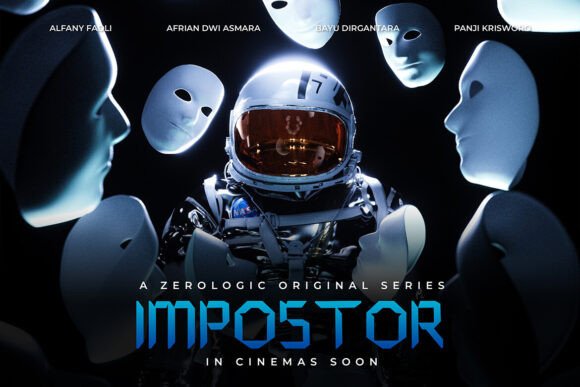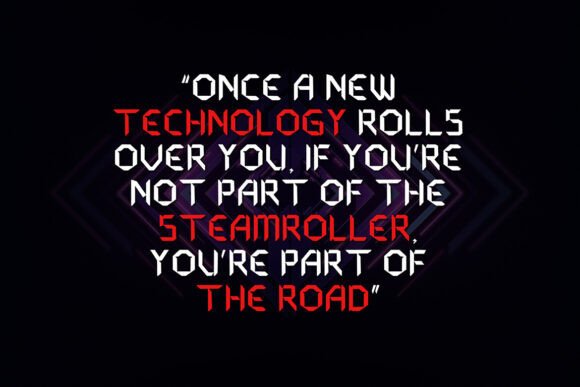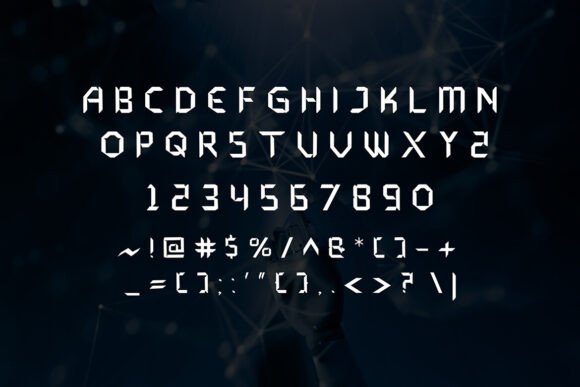
A New Dimension in Typography: Introducing Aero Glyphics Font
As a designer, there’s nothing quite like the thrill of discovering a new font that sparks creativity and inspires innovation. The moment you stumble upon that perfect combination of style and functionality, it’s like unlocking a door to a world of endless possibilities. For us, that moment arrived with the introduction of our new collection, Aero Glyphics – Futuristic Display.
This cutting-edge font is designed to elevate your designs to new heights, making it perfect for titles, typography, posters, magazines, brochures, packaging, websites, and much more. With its futuristic style and strong characteristics, Aero Glyphics Font is a valuable addition to any designer’s toolkit, allowing you to create modern and professional designs that truly stand out.
Whether you’re a seasoned pro or just starting out, Aero Glyphics Font is sure to become your go-to choice for any project that demands a touch of futurism and sophistication.
Aero Glyphics Font Key Features
- Unique Character Set: This font features a unique set of glyphs, including extended Latin, Cyrillic, and Greek characters, making it suitable for multilingual designs.
- Stylistic Sets: Aero Glyphics Font includes 5 stylistic sets, allowing designers to add variety and interest to their text with subtle changes in font style and appearance.
- Support for Advanced Typography: The font includes advanced typographic features, such as ligatures, fractions, and ordinals, enabling designers to create complex and sophisticated typography.
Aero Glyphics Font Review
I recently had the chance to work with the Aero Glyphics font, and I must say, it’s a unique and stylish addition to any design project. ✨
Here are some things that I think work well with this font:
- Modern aesthetic – Aero Glyphics has a sleek, futuristic feel that’s perfect for tech, gaming, or futuristic-themed designs.
- Good legibility – Despite its unconventional design, the font is surprisingly easy to read, even at smaller sizes.
- High contrast – The bold lines and contrasting colors make this font perfect for creating eye-catching headings and titles.
- Limited character set – Aero Glyphics is not a full-featured font, and it’s missing some common characters, such as accented letters and punctuation.
- May not be suitable for body text – Due to its bold, attention-grabbing design, Aero Glyphics may not be the best choice for large blocks of body text.
- May not be accessible – Some users may find the font difficult to read, especially if they have visual impairments or are using low-resolution displays.
Overall, I think Aero Glyphics is a great addition to any design toolbox, but it’s essential to use it judiciously and consider its limitations. With the right project and design approach, this font can really shine. ⚠️
Tips for Getting the Most Out of Aero Glyphics Font
1. Use Aero Glyphics Font for creative and eye-catching headings.
2. Experiment with different font sizes and colors to create visual interest.
3. Combine Aero Glyphics Font with other fonts for a unique and dynamic look.
1. Branding and logos
2. Marketing materials (brochures, flyers, posters)
3. Digital design (websites, social media graphics)